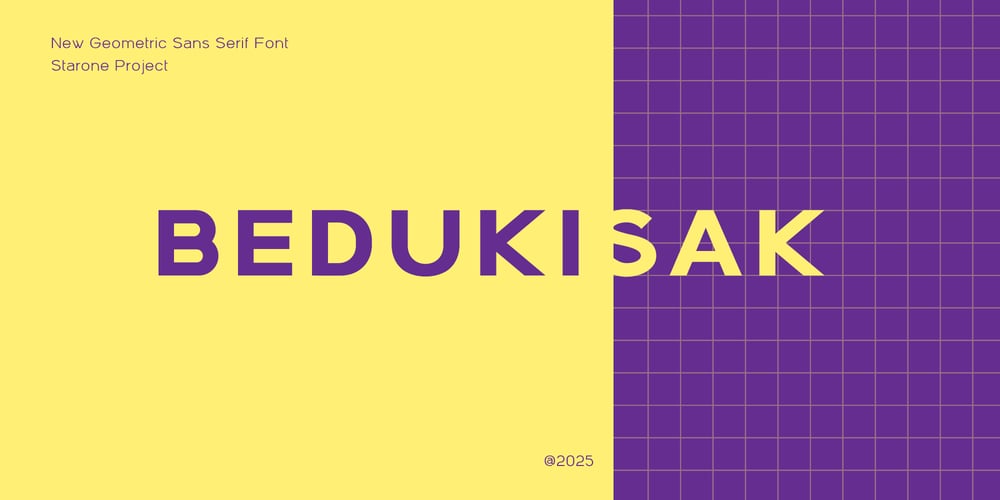
Bedukisak Font Family was designed by Mohammad Teguh and published by Starone Project. Bedukisak contains 3 styles and family package options. Bedukisak is San serif Font with geometrical shape. It can be used for Logo, Sign Display and any others needs.